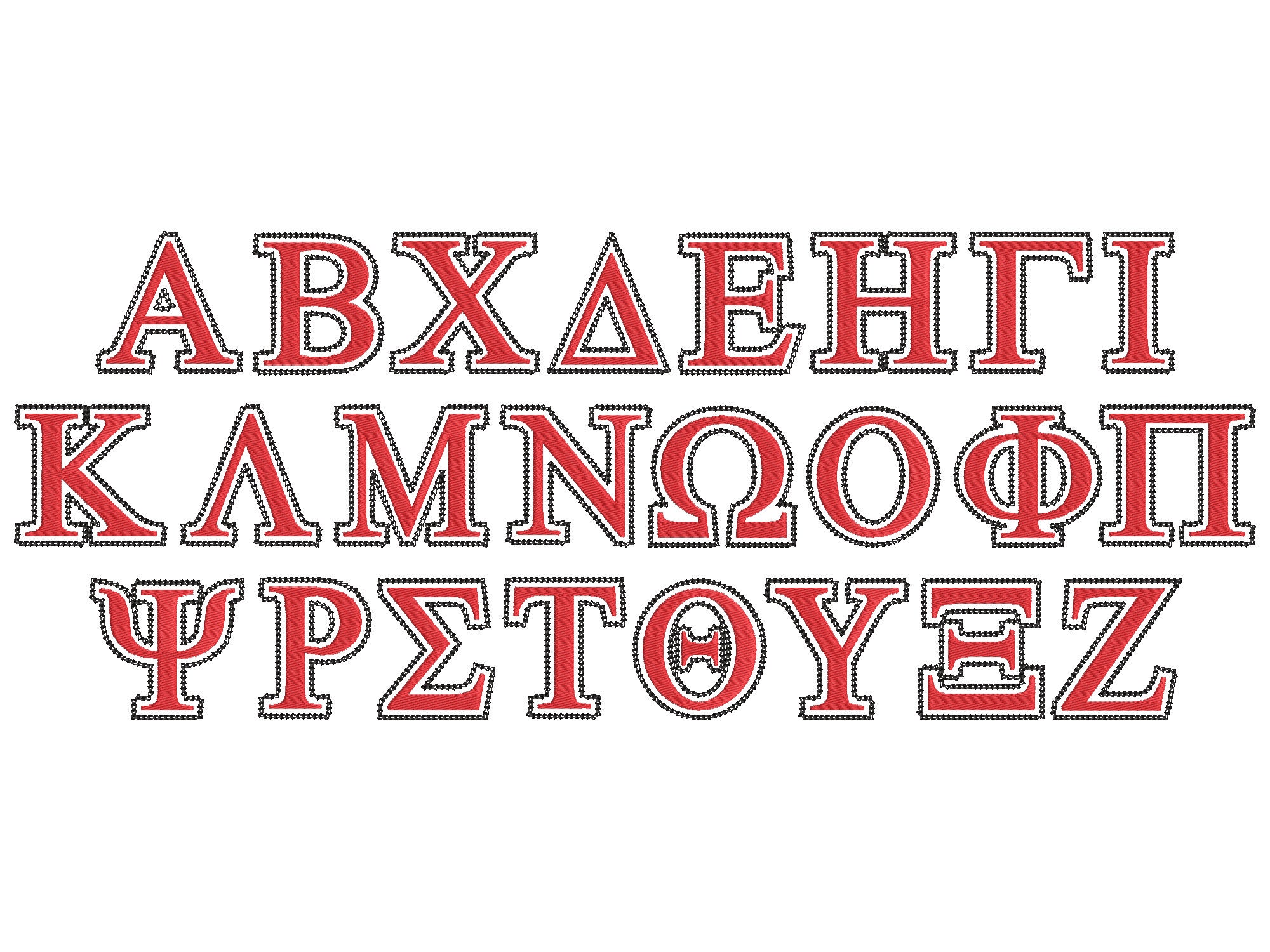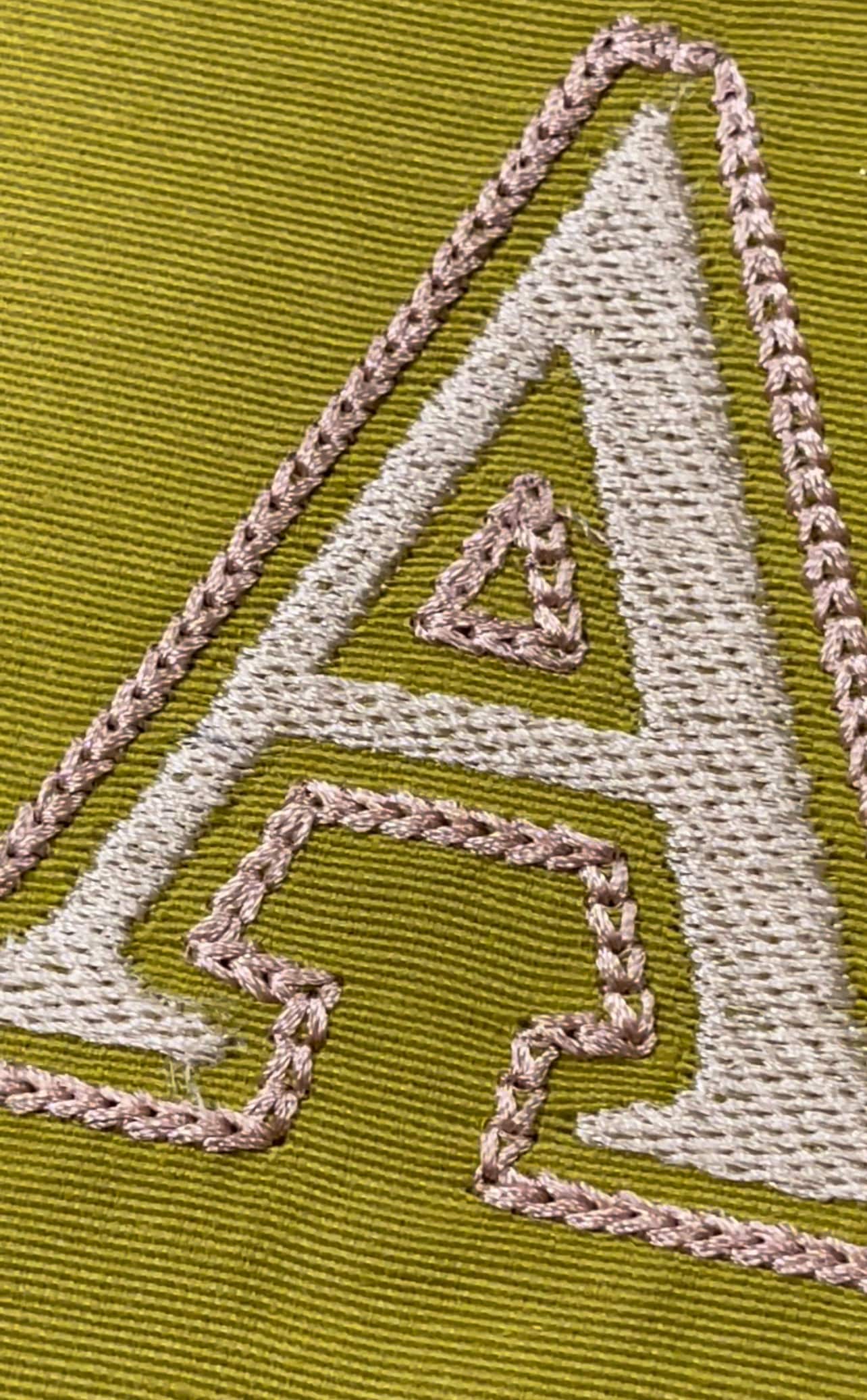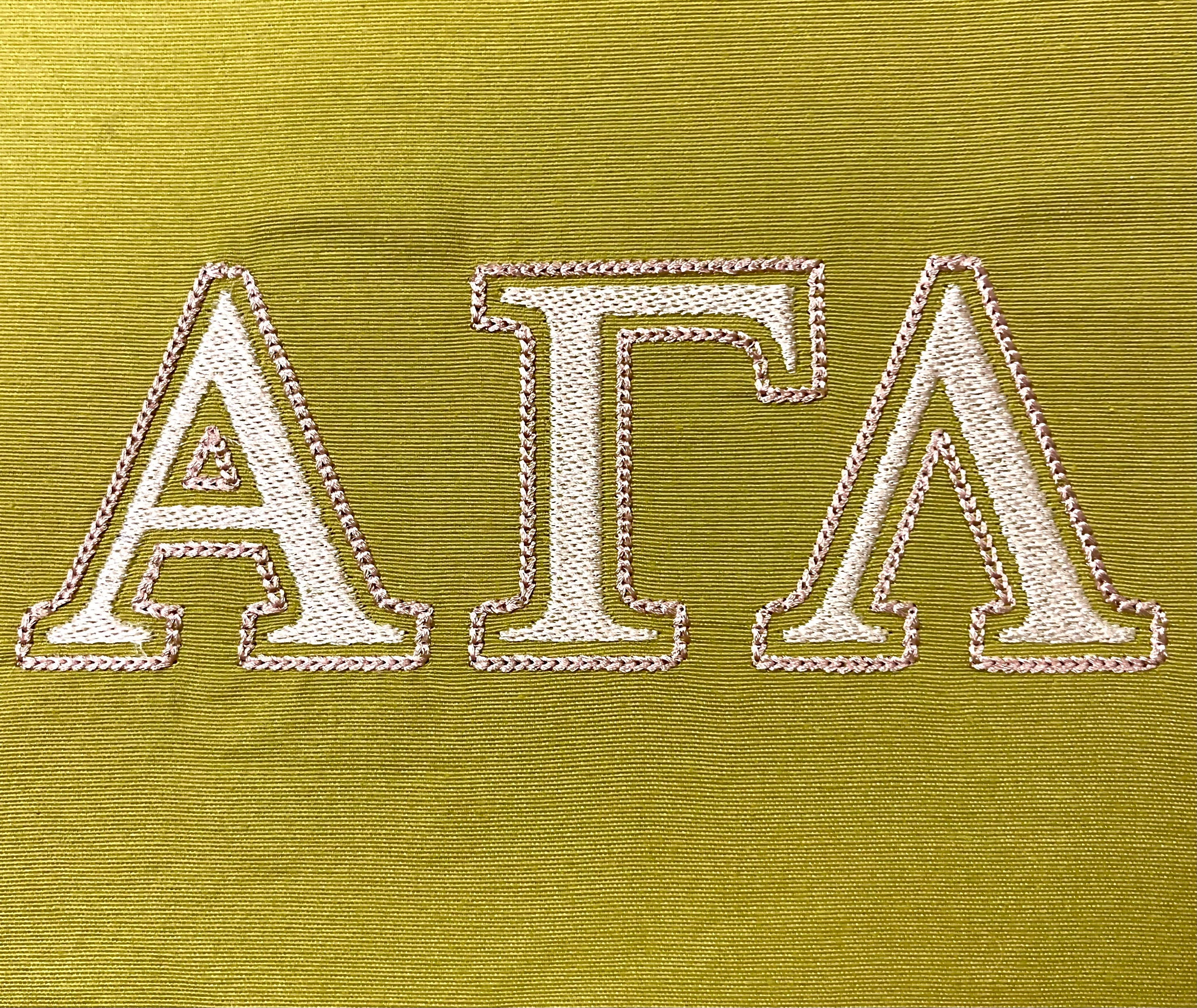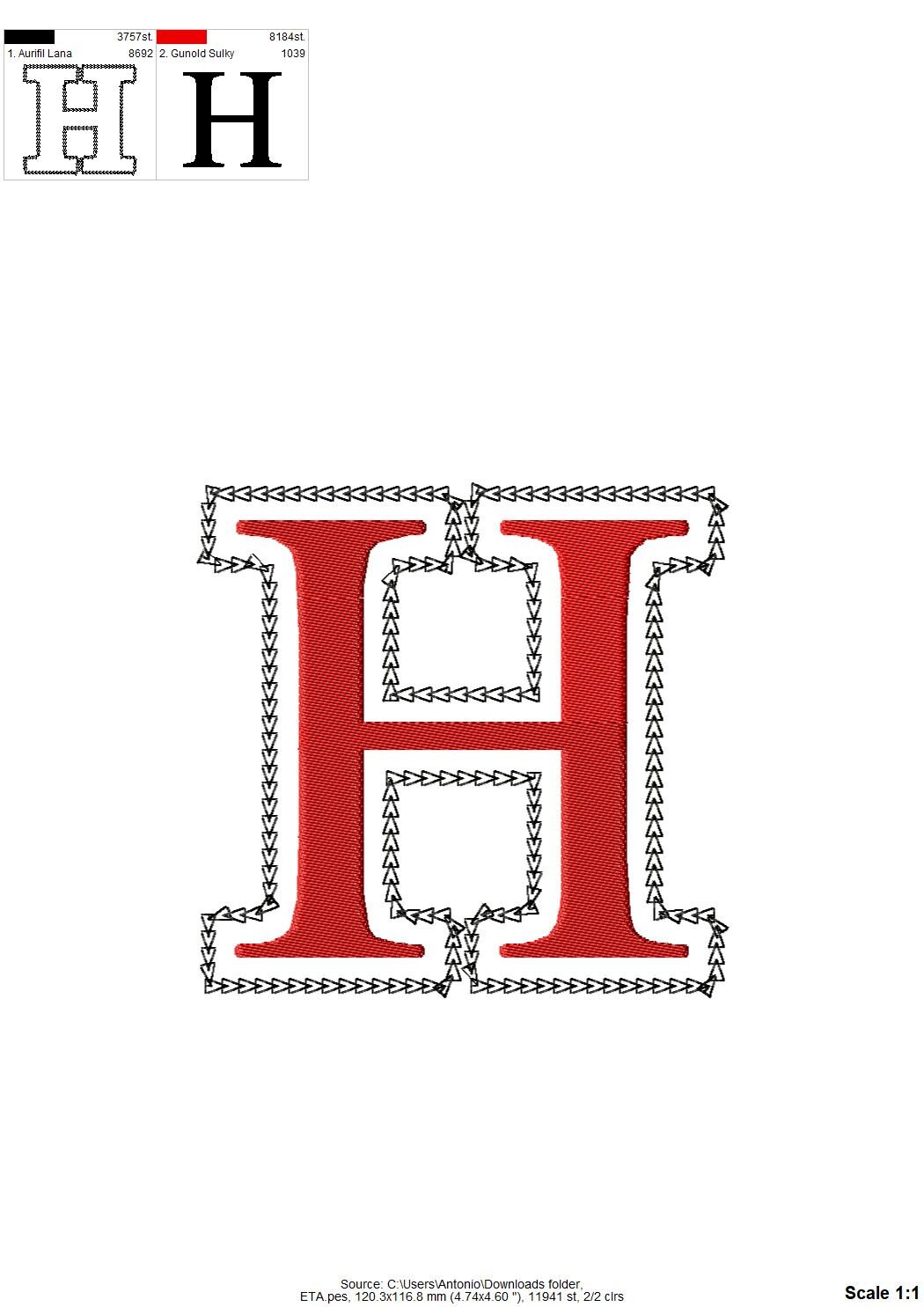
Gorgeous GREEK FONT fill stitch and chain stitch outline Greek alphabet Alpha Beta Gamma Theta machine embroidery designs monogram letters, BX included
The letters have fill stitch inside and a beautiful chain stitch outline.